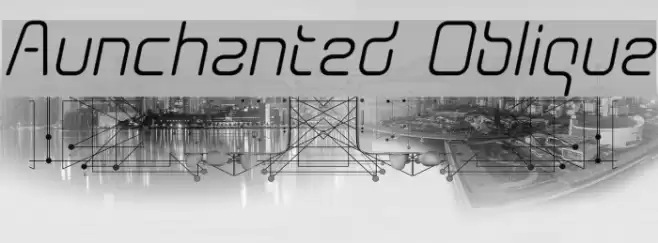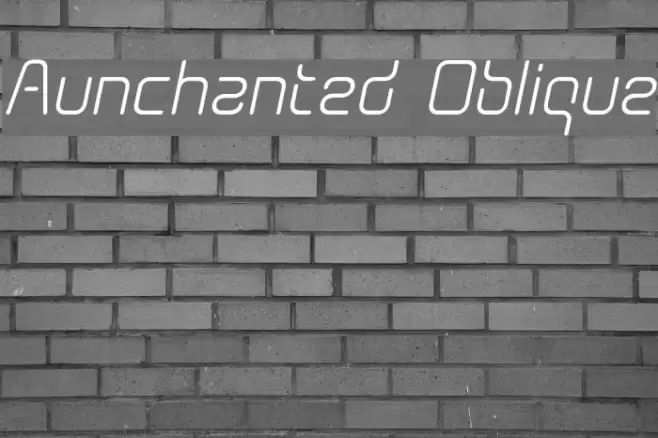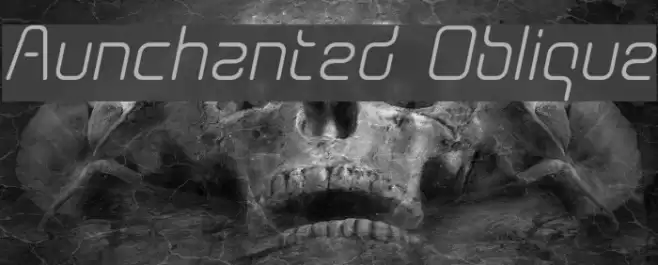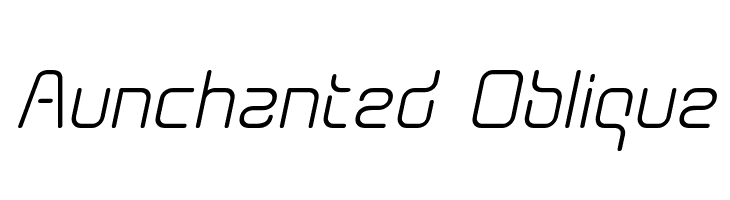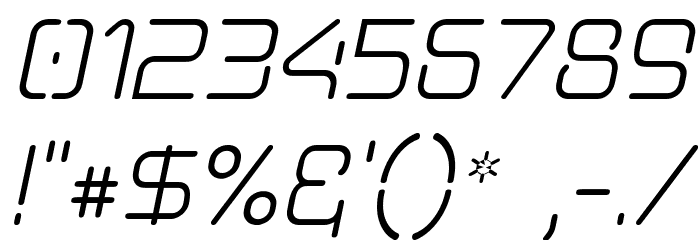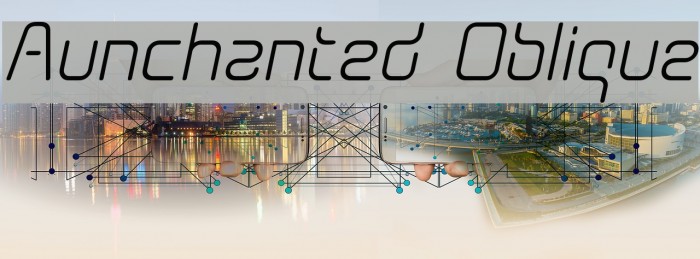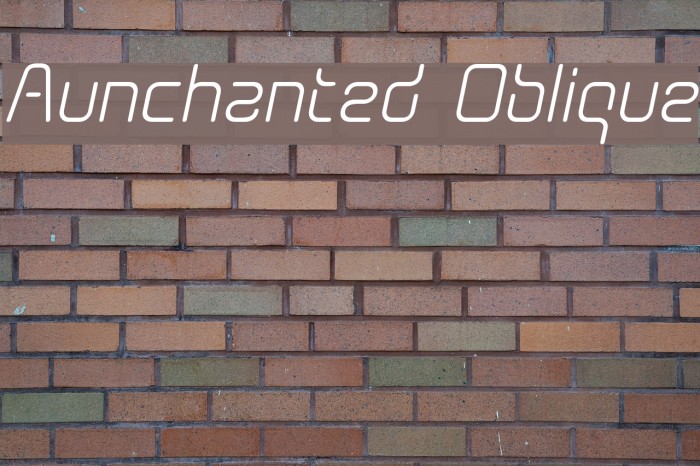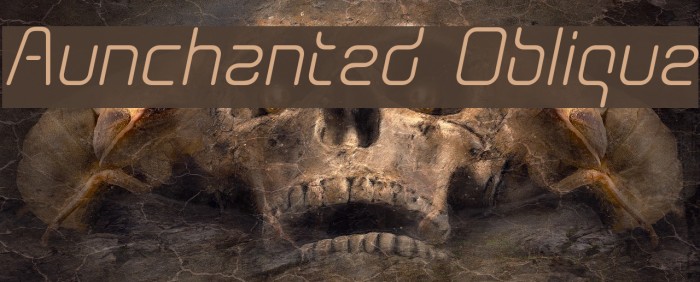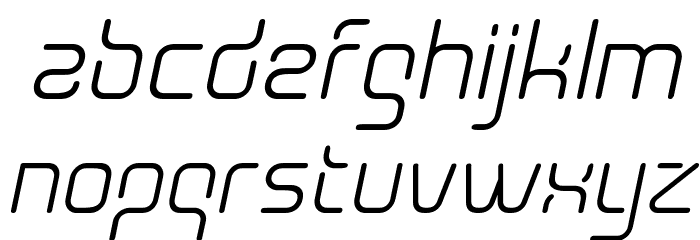
Aunchanted Oblique Font
Aunchanted Oblique Description
This font features a sleek, modern design with a distinct oblique slant, giving it a dynamic and forward-moving appearance. The characters are crafted with a uniform line weight, contributing to a clean and streamlined look. The rounded edges and smooth curves provide a sense of fluidity and elegance, while the geometric structure maintains a sense of order and precision. The font's open and airy design makes it highly legible, even at smaller sizes, and its contemporary style is well-suited for a variety of digital and print applications.
A modern, oblique font with sleek lines and geometric precision from Futuristic fonts.
- Proposed Projects: Ideal for tech branding, modern web design, digital interfaces, and innovative product packaging.
- Use Case: Headlines, Logos, Digital interfaces